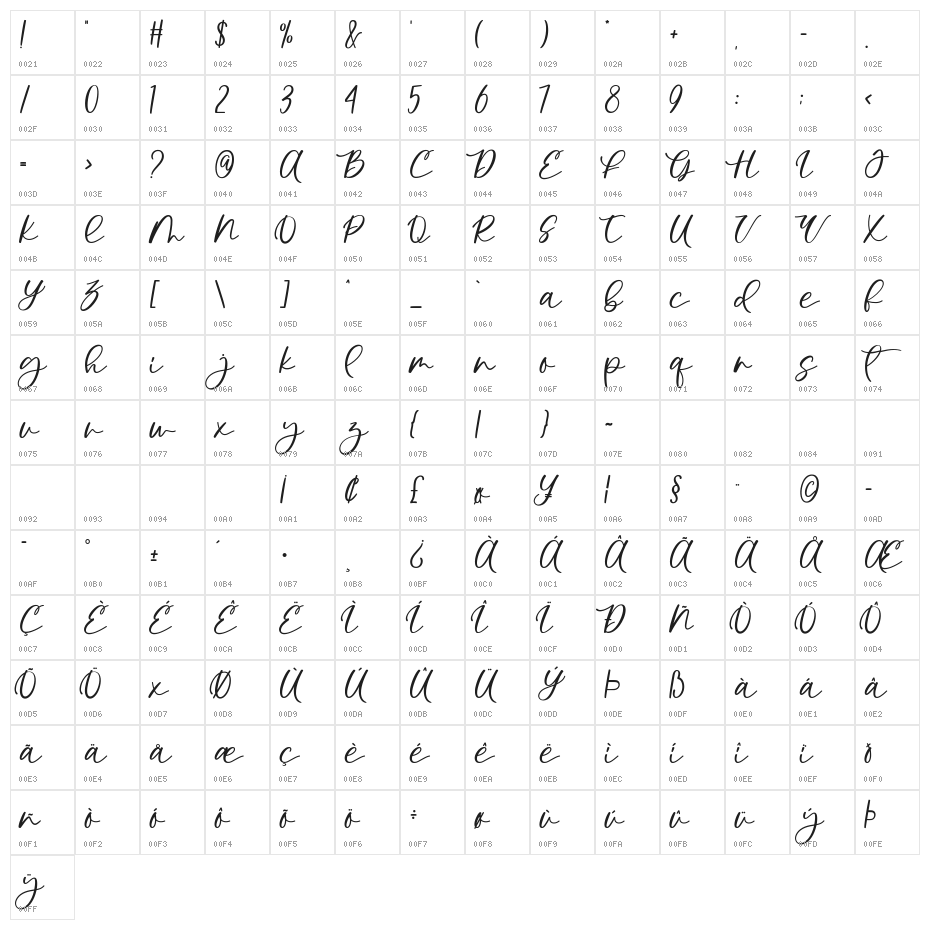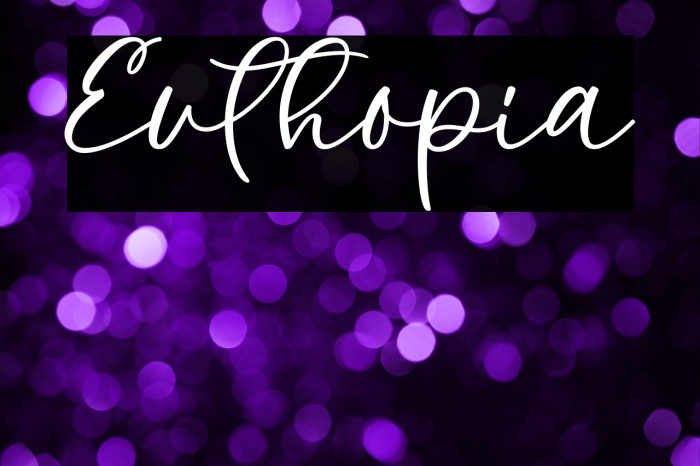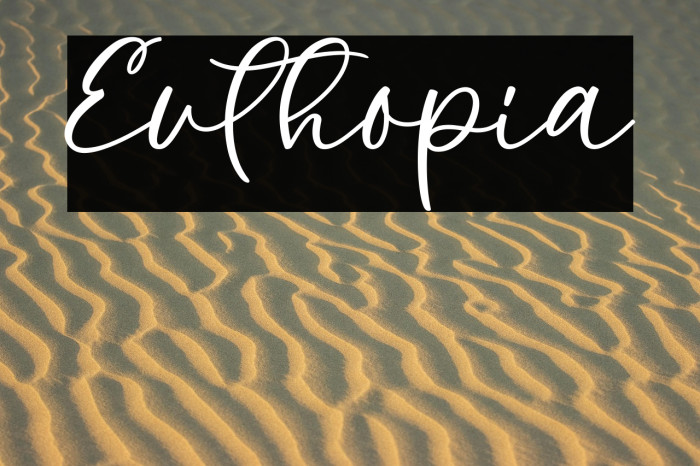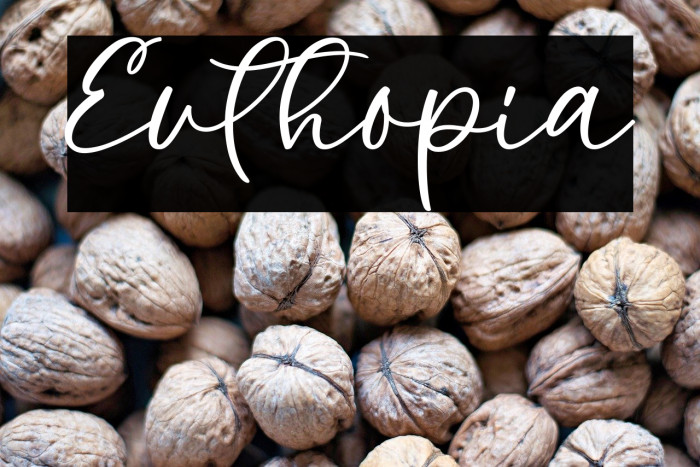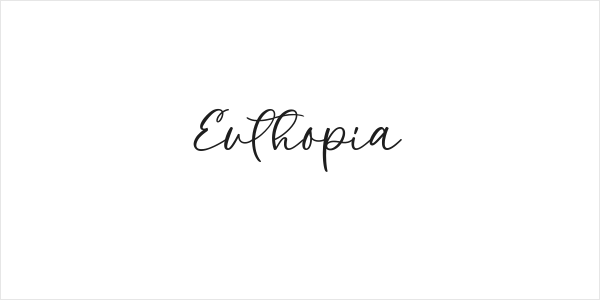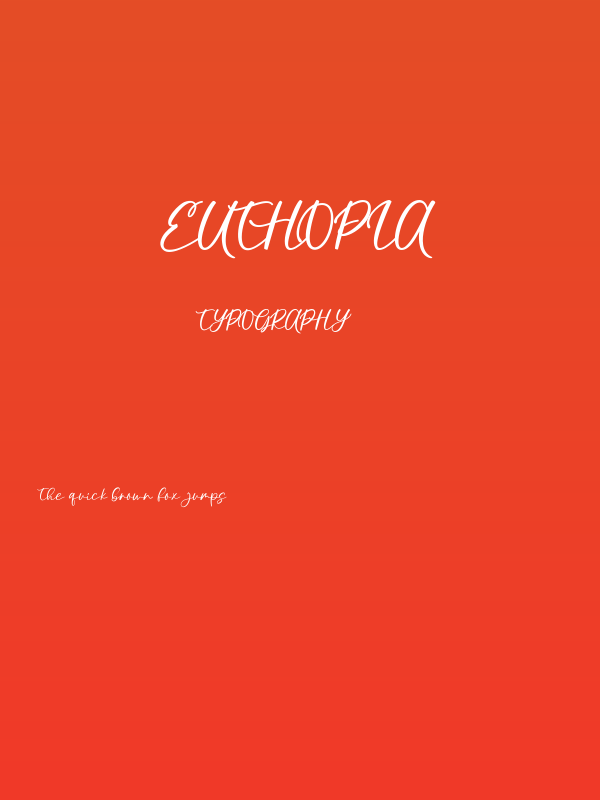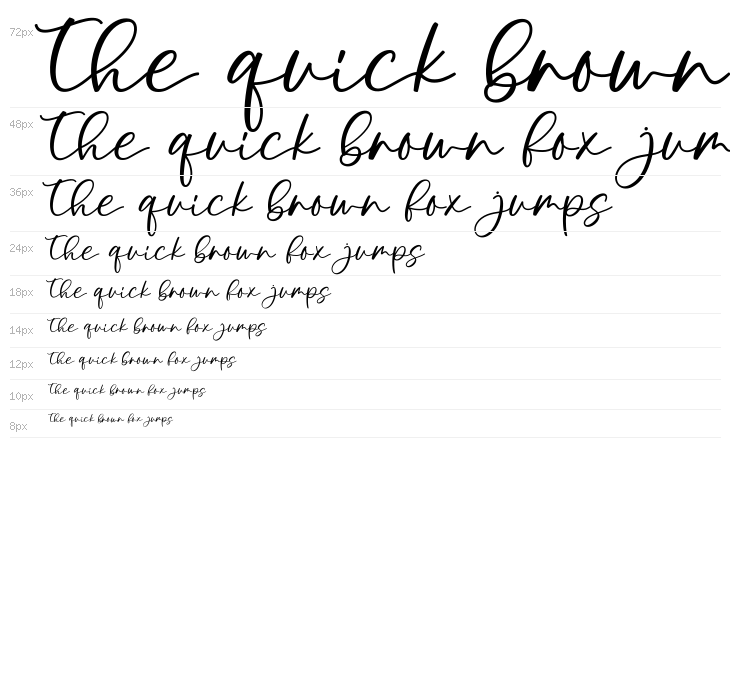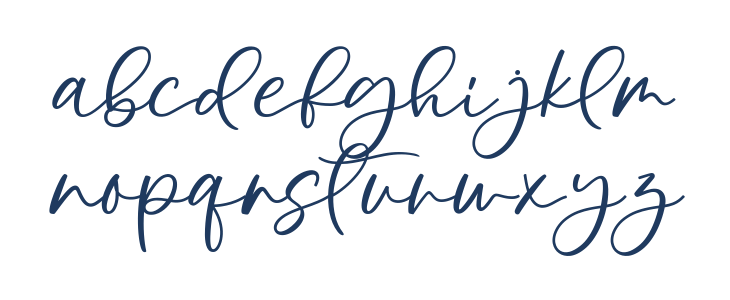
Euthopia Font
Euthopia Description
This font features a flowing, cursive style that mimics elegant handwriting. The characters are interconnected, creating a seamless and fluid appearance. The uppercase letters are bold and expressive, while the lowercase letters maintain a consistent rhythm and grace. The numerals and special characters are crafted with the same attention to detail, ensuring a cohesive look throughout. This font exudes a sense of sophistication and charm, making it ideal for projects that require a personal touch.
| Overall Style | Elegant |
| Use Case | Logos, Invitations, Personal Branding |
| Proposed Projects | Ideal for wedding invitations, greeting cards, personal branding, and elegant packaging designs. |